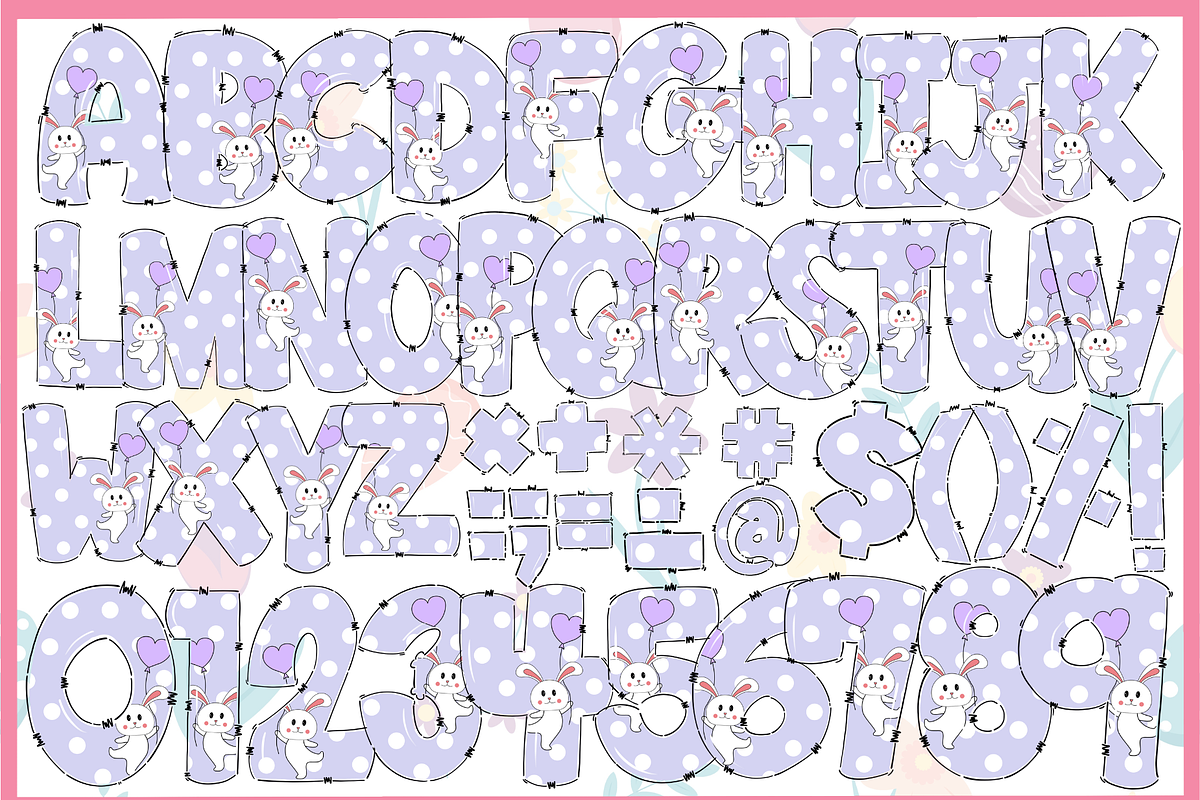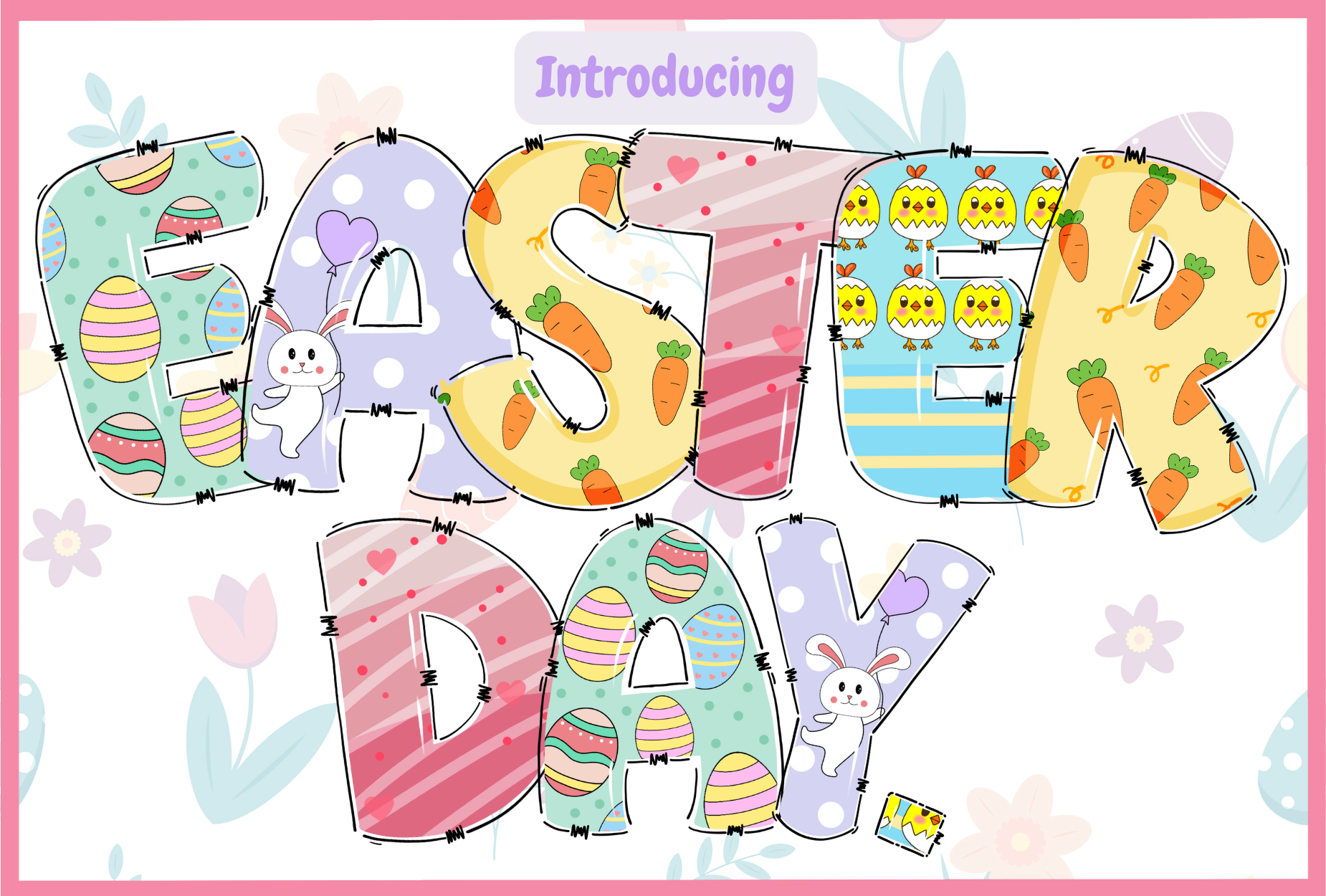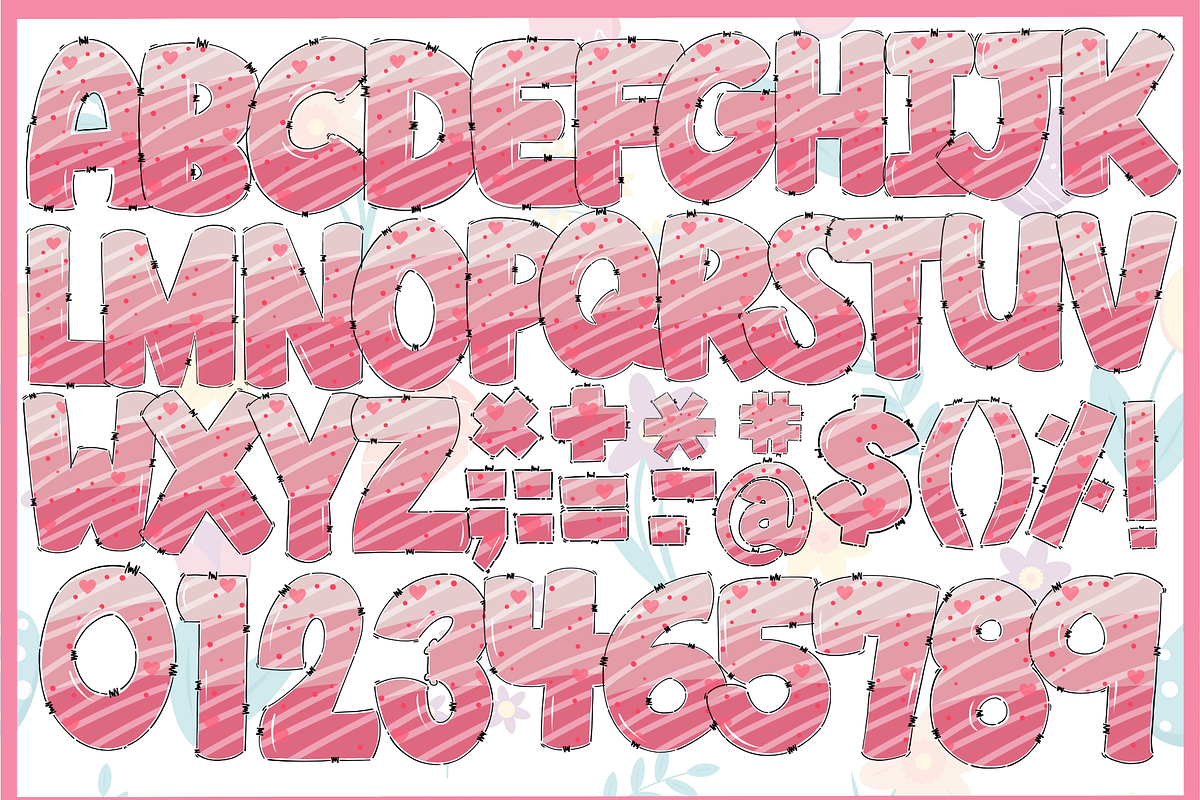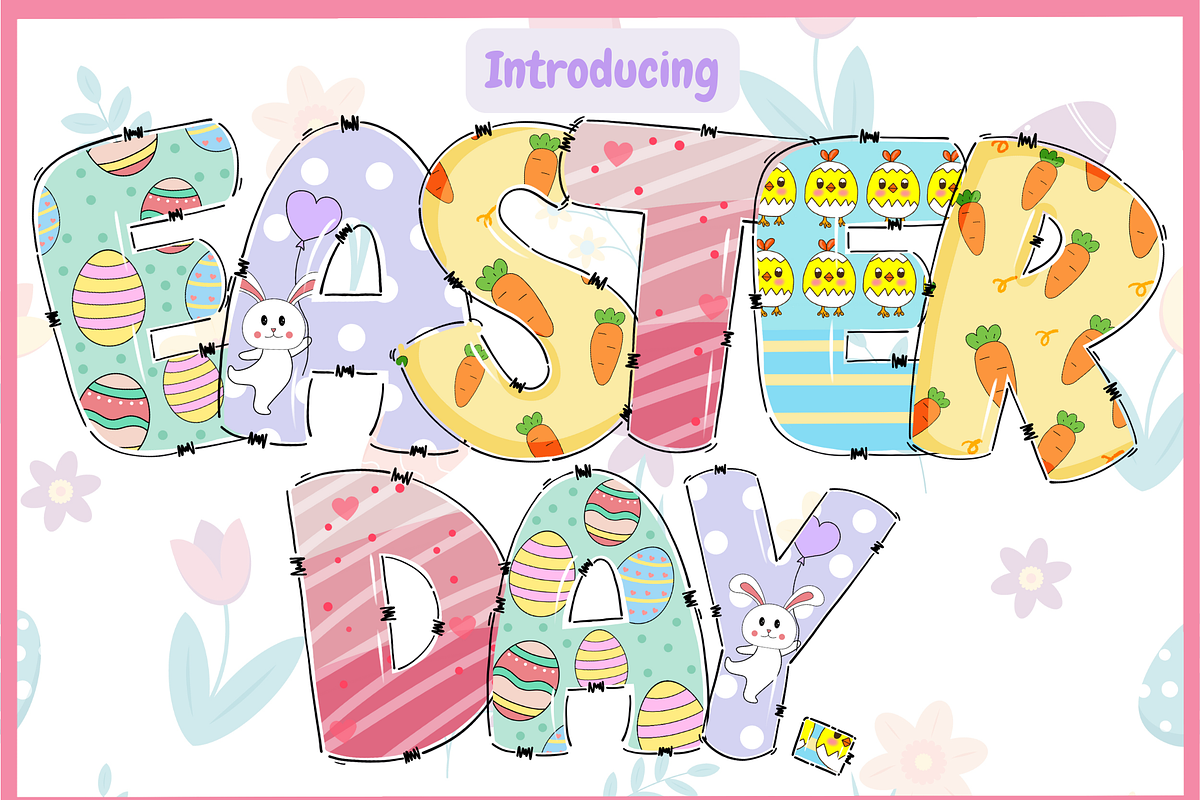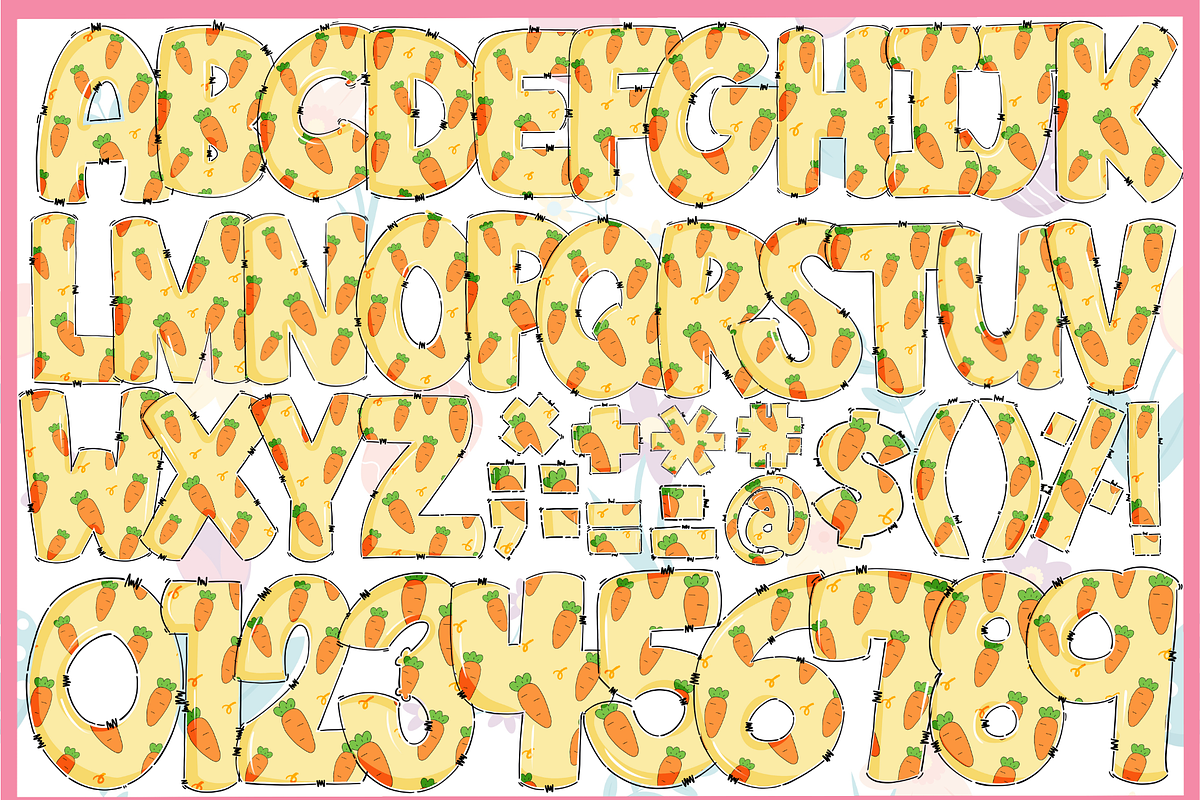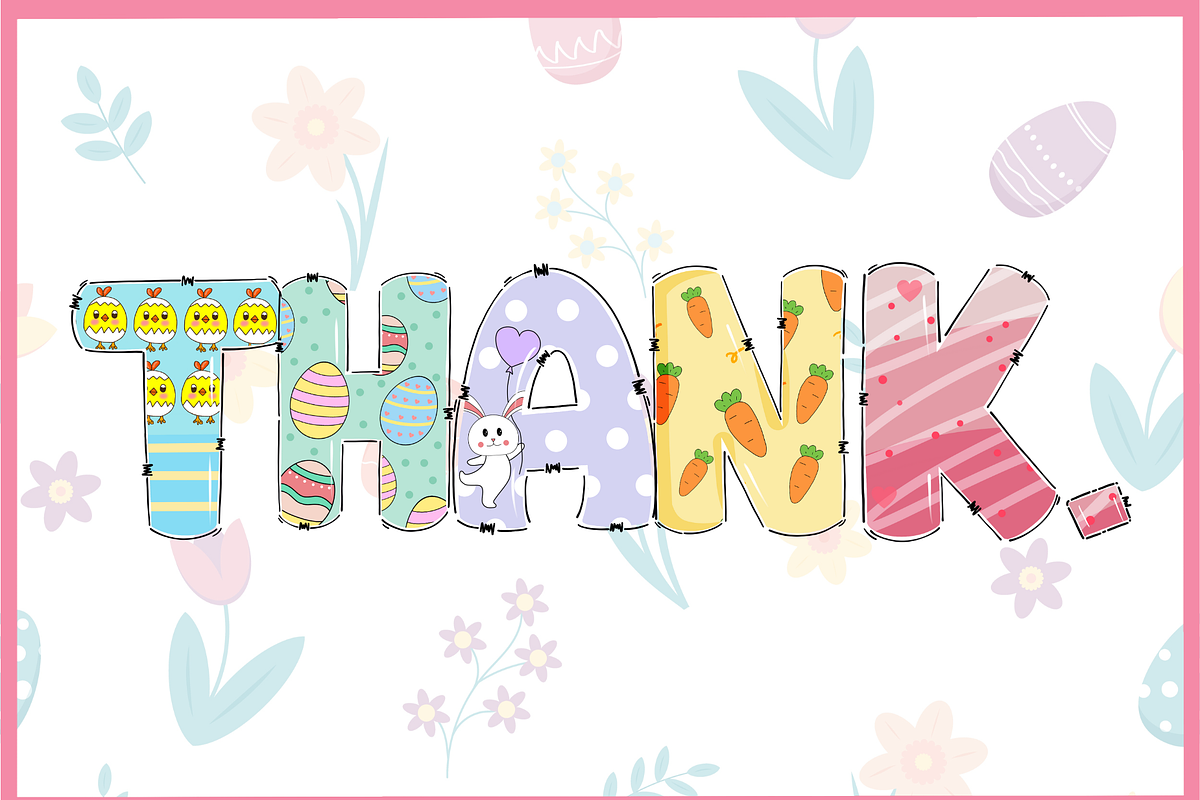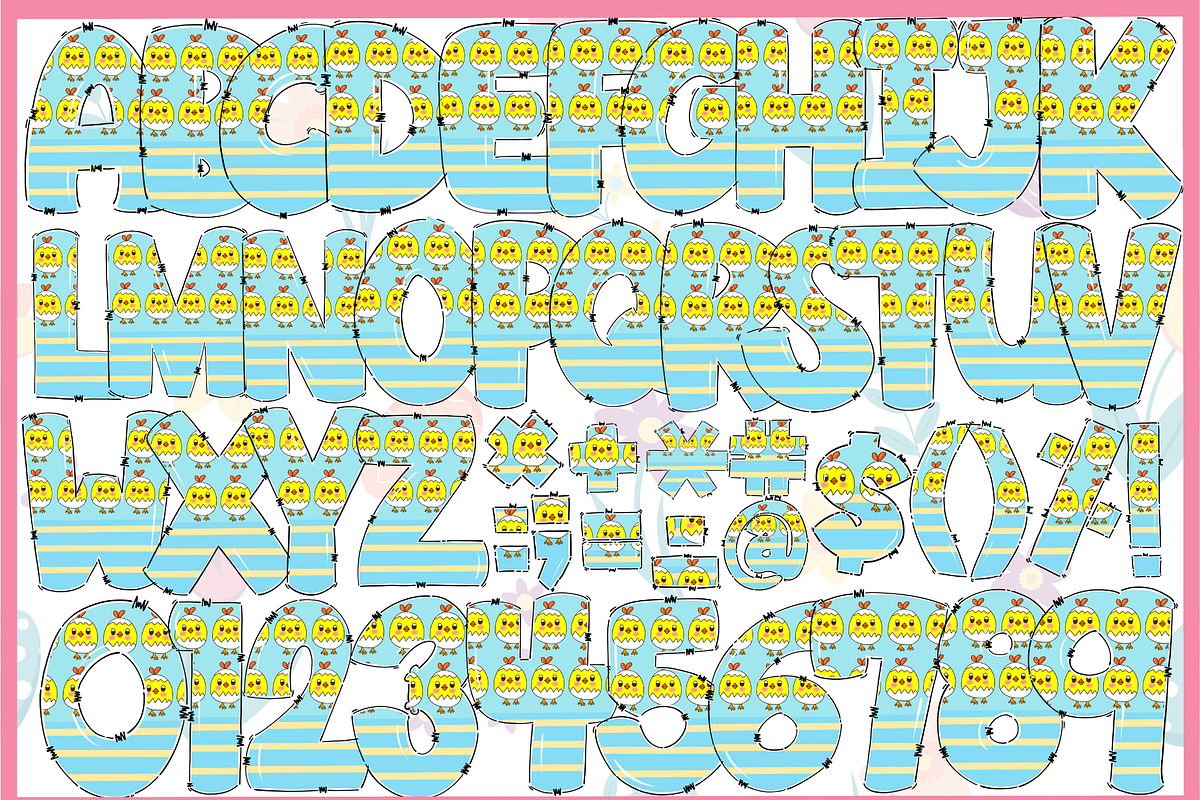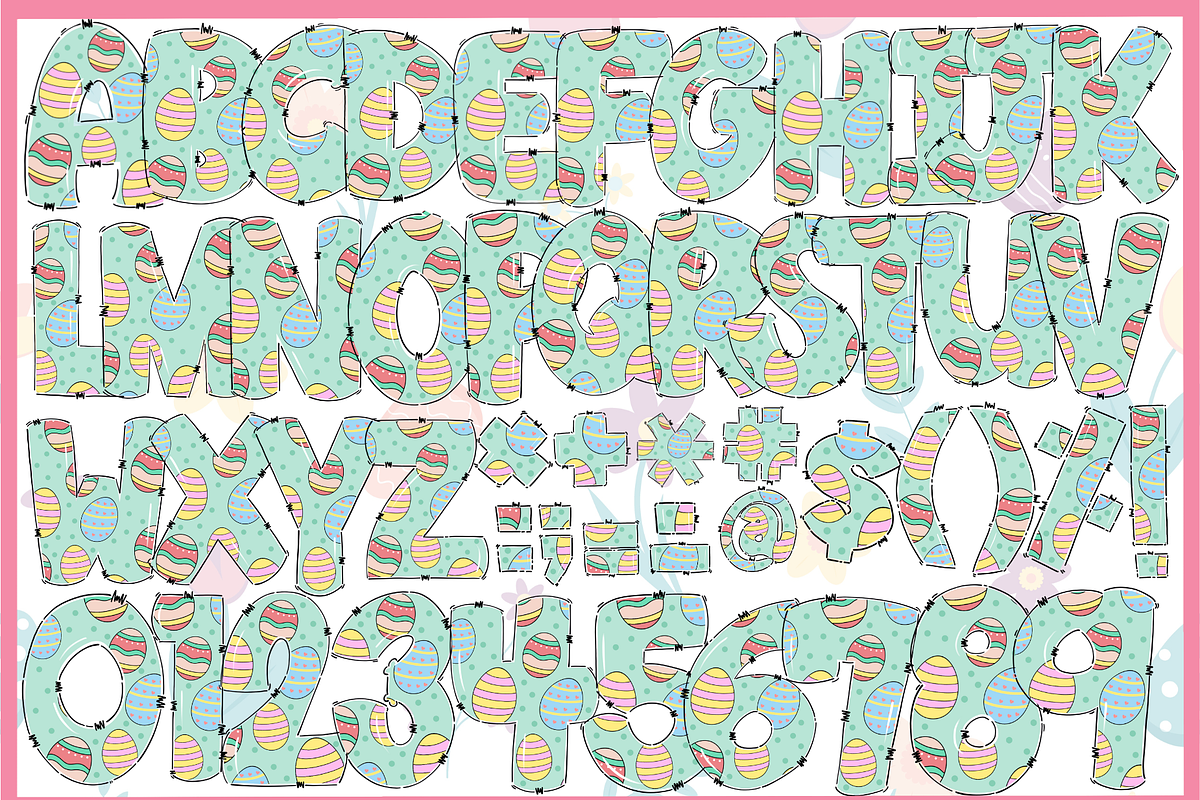
Easter Day-PNG fonts
Easter Day Font Bundle PNG OTF TTF | Cute Pastel Spring Alphabet Letters Celebrate the season with this adorable Easter Day Font Bundle featuring cute pastel designs perfect for spring projects, classroom decor, bulletin boards, worksheets, party printables, and digital creations.
This bundle includes 5 PNG design variations along with OTF and TTF font files, making it easy to use for both printable and digital resources. The playful Easter-themed style includes sweet seasonal elements such as bunnies, chicks, carrots, Easter eggs, hearts, and soft pastel colors that are perfect for teachers, homeschool parents, and creative designers.